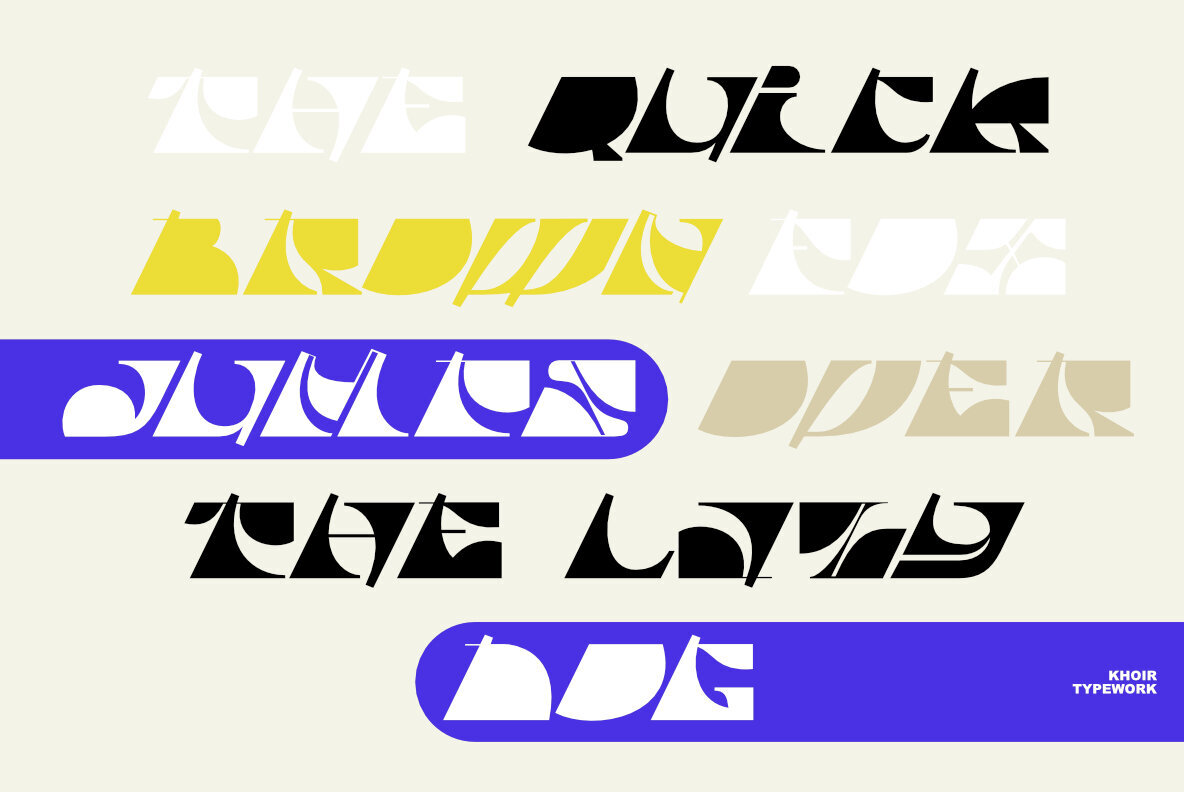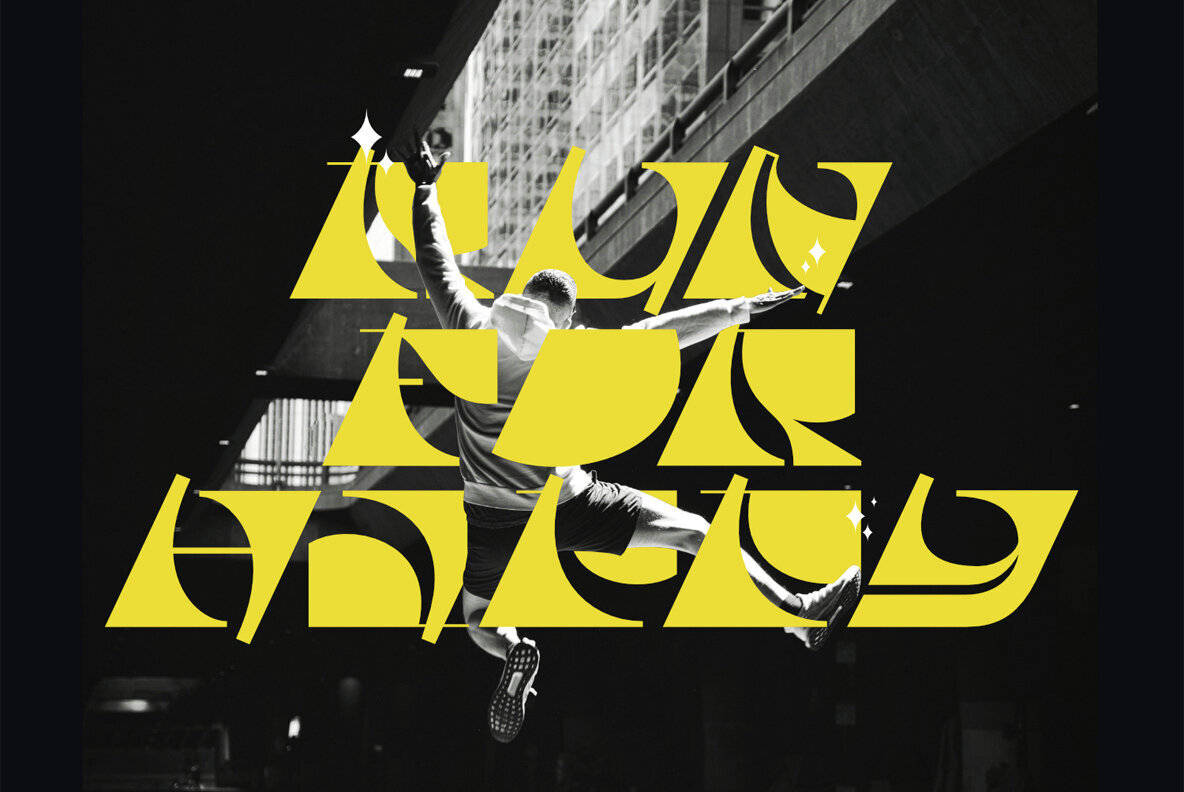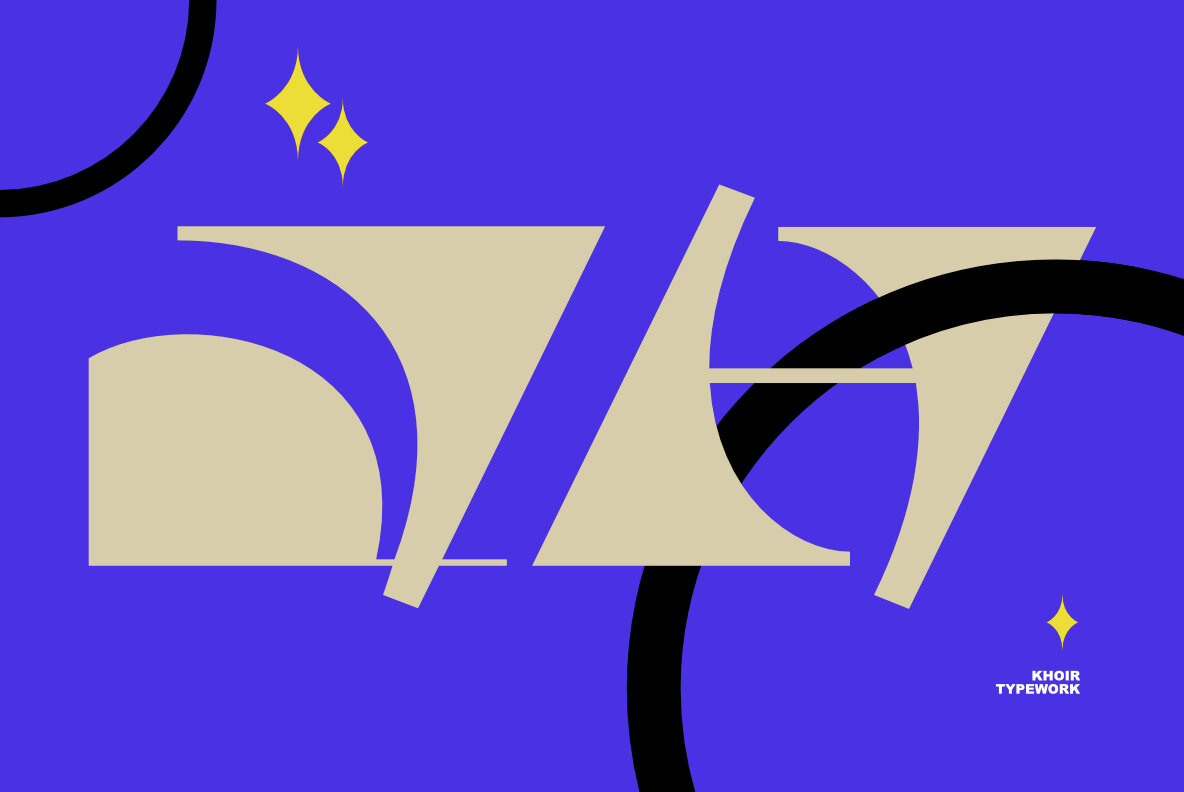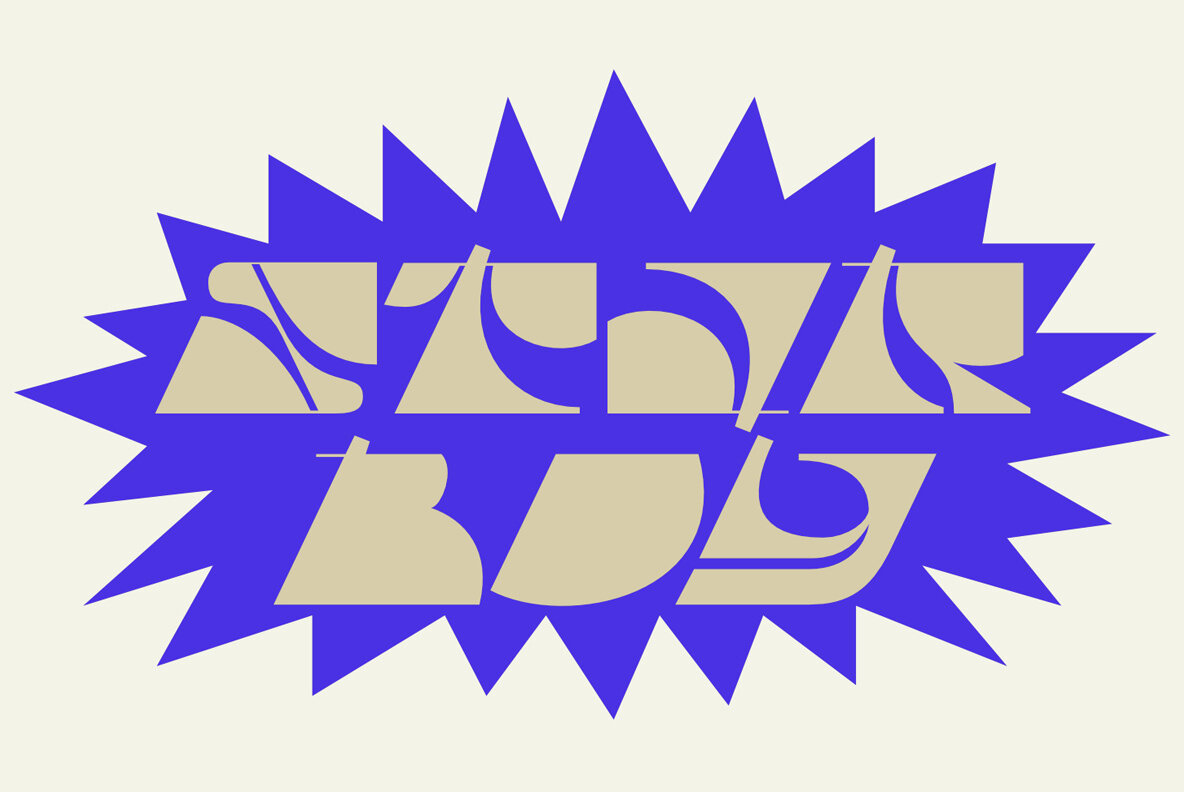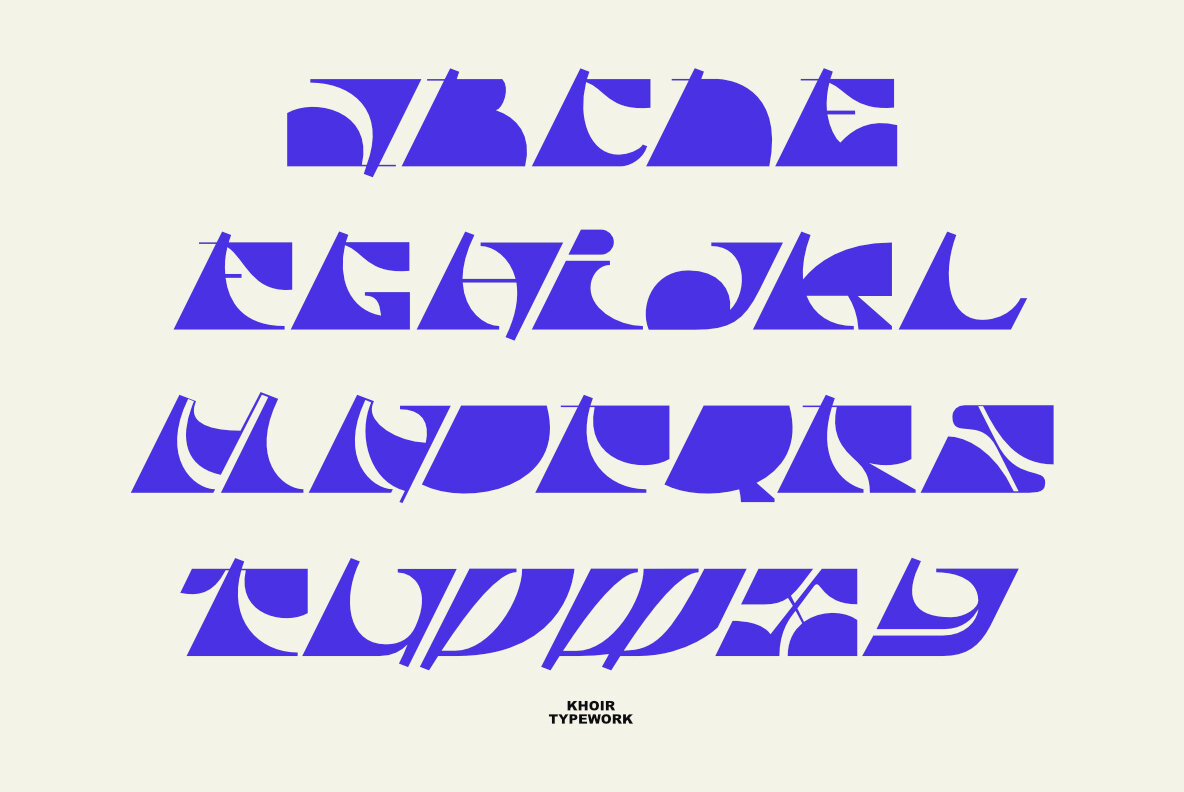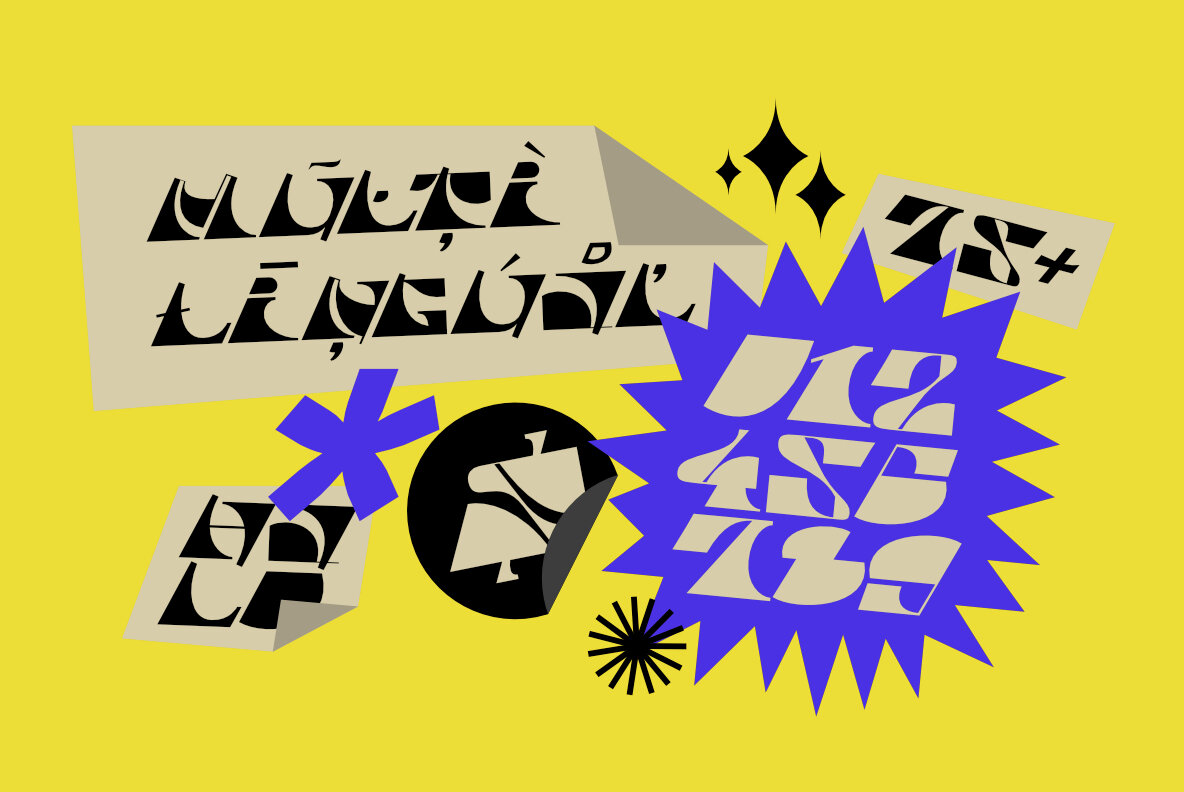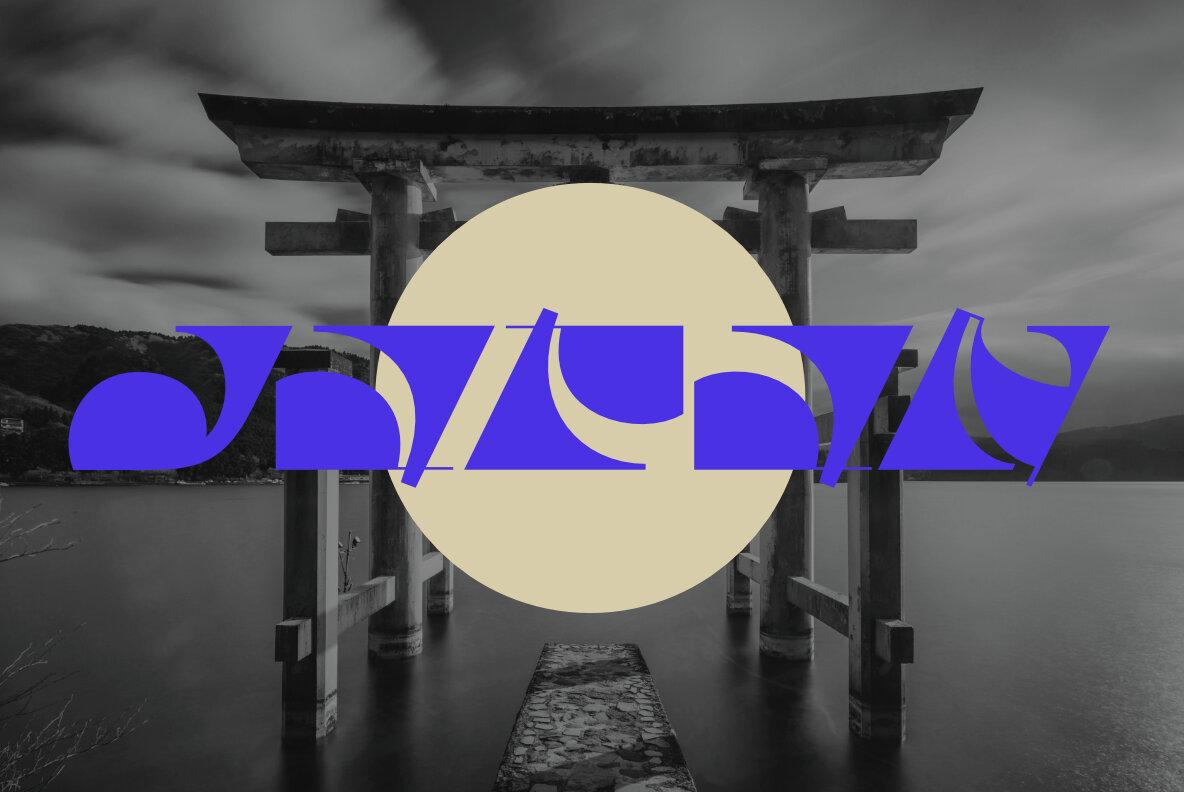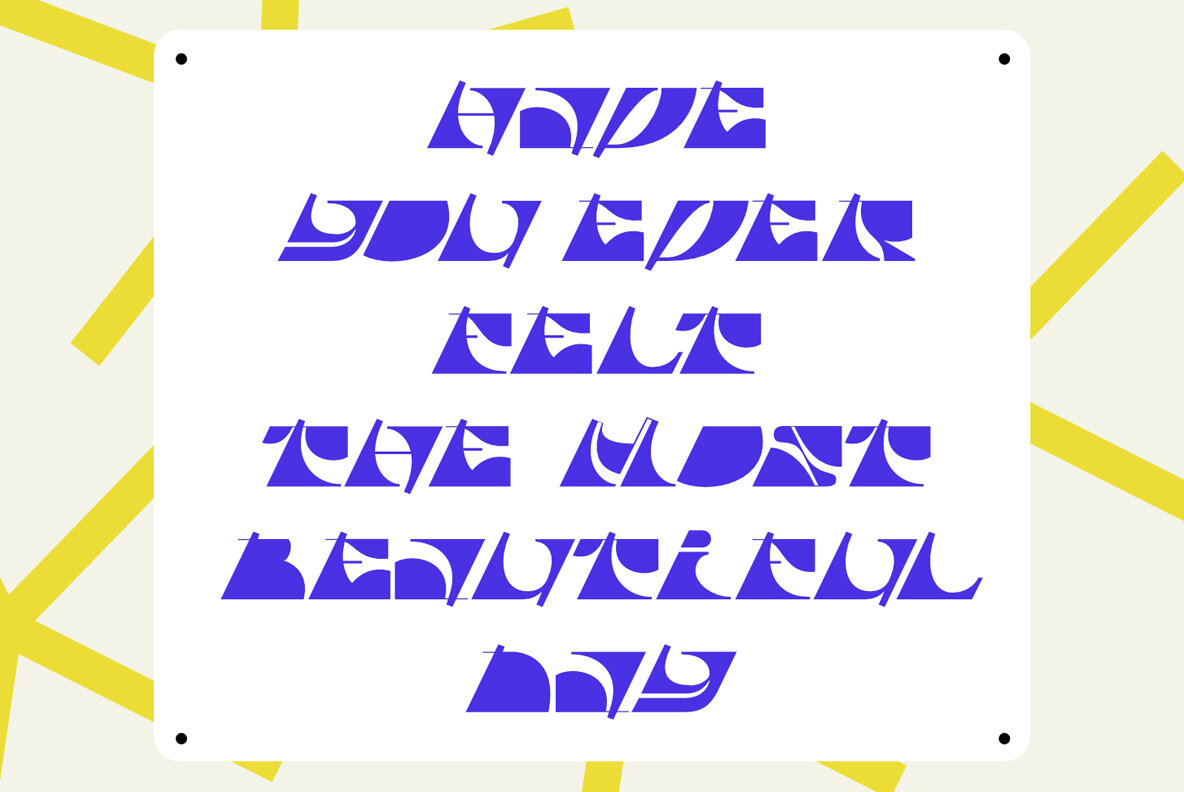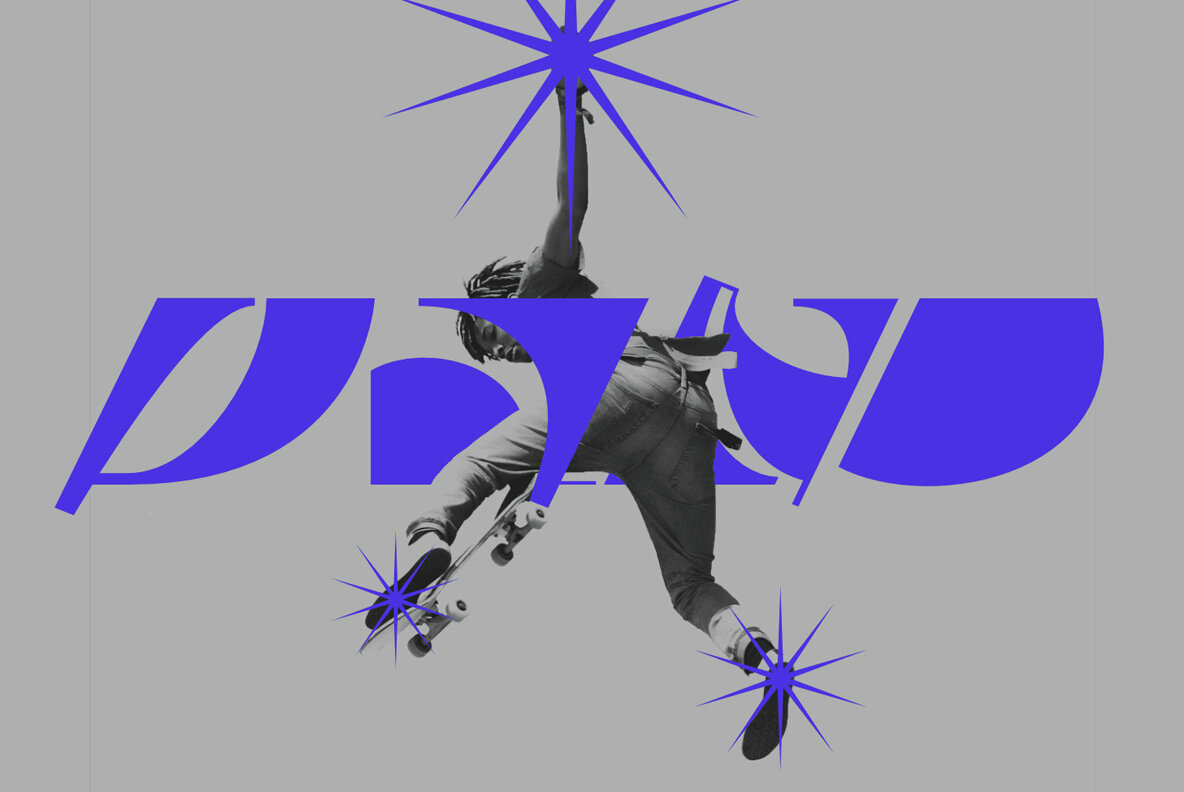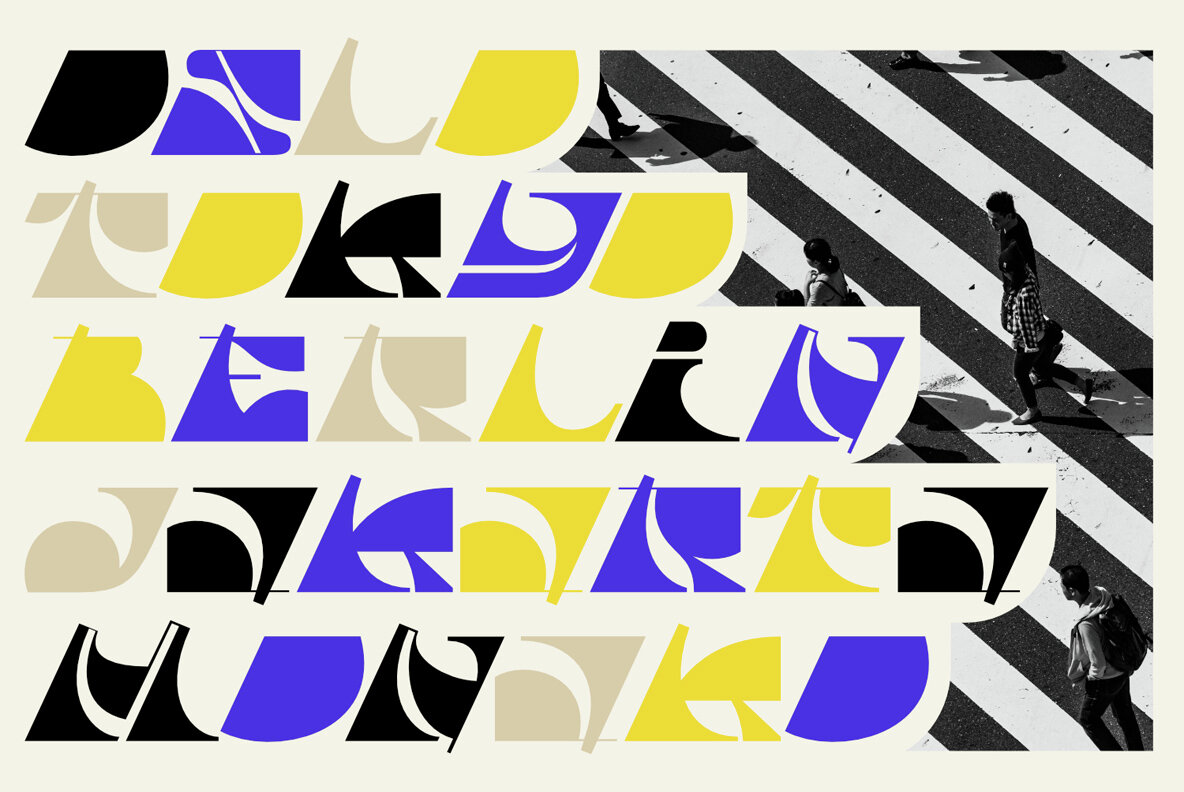
Paco Font
PACO
Paco is a distinctive font that combines uniqueness with character, offering a refreshing design for various branding applications. Its abstract yet cohesive form makes it suitable for creating impactful logos, eye-catching posters, vibrant magazines, engaging stickers, appealing packaging, and dynamic social media visuals.
This font supports over 75 languages, providing versatility for a global audience. With an all-uppercase style, Paco ensures that your designs remain bold and captivating. Ideal for professionals seeking to leave a memorable impression, this font perfectly balances creativity and functionality for diverse design projects.